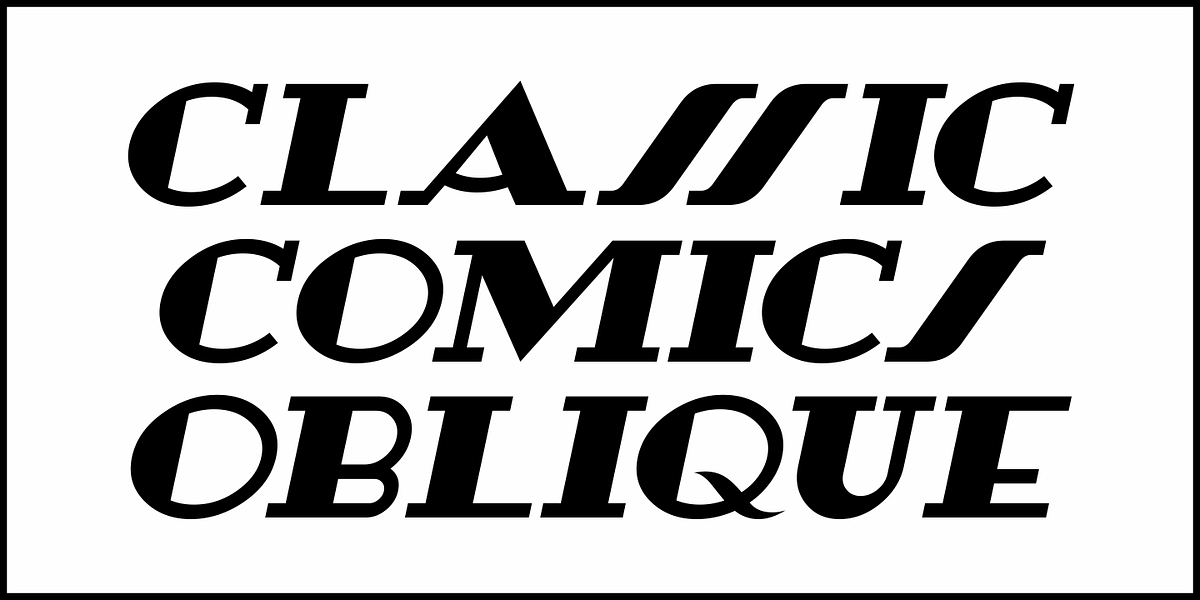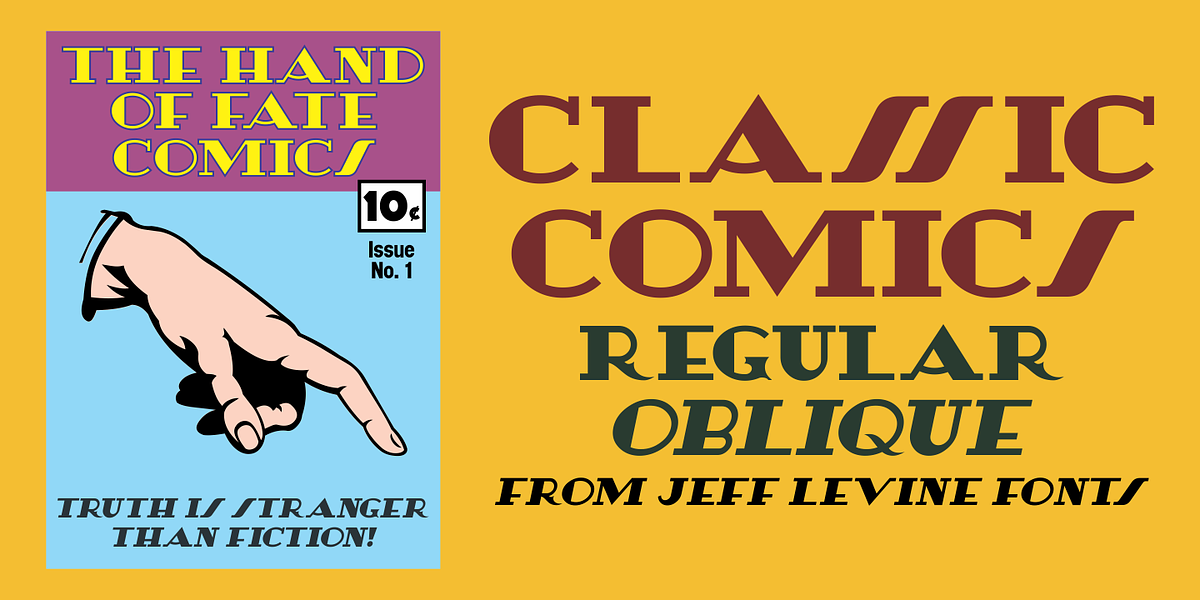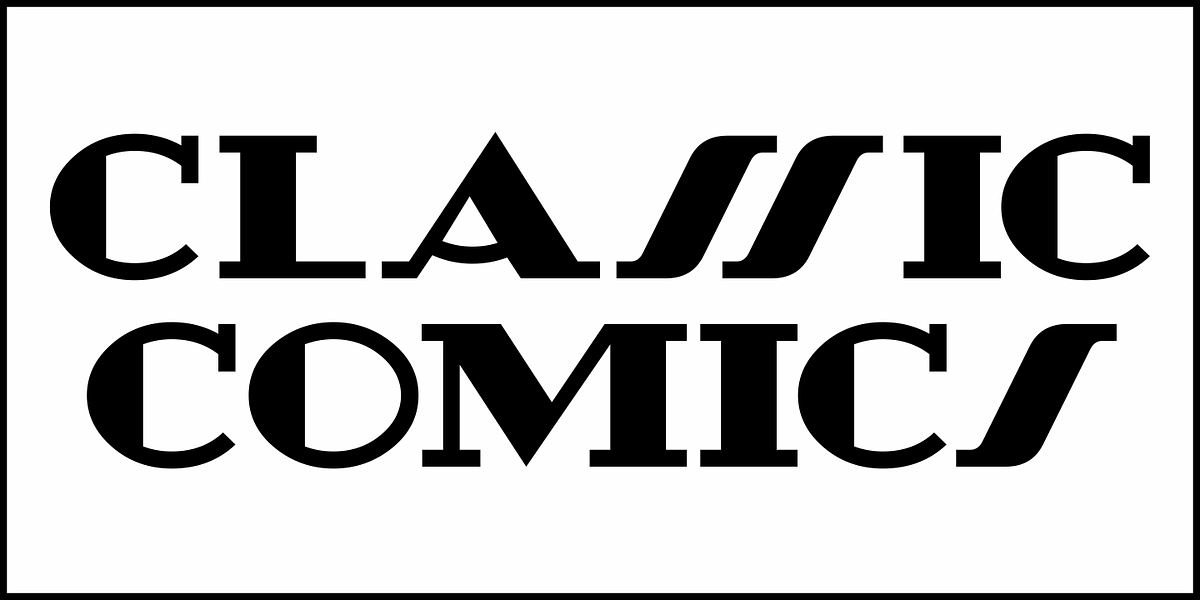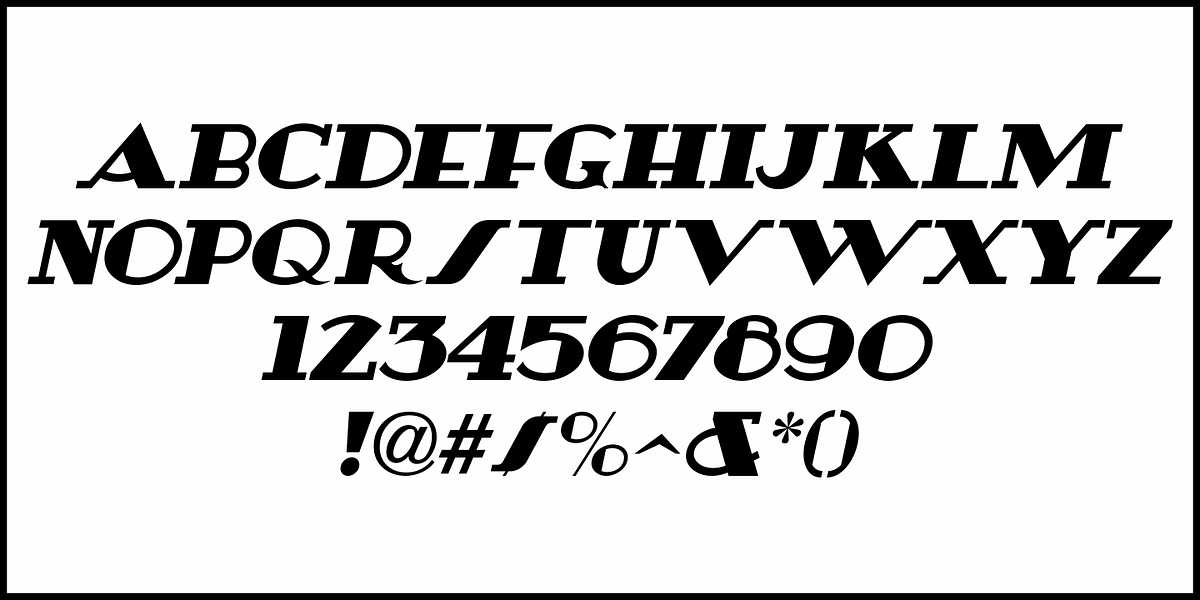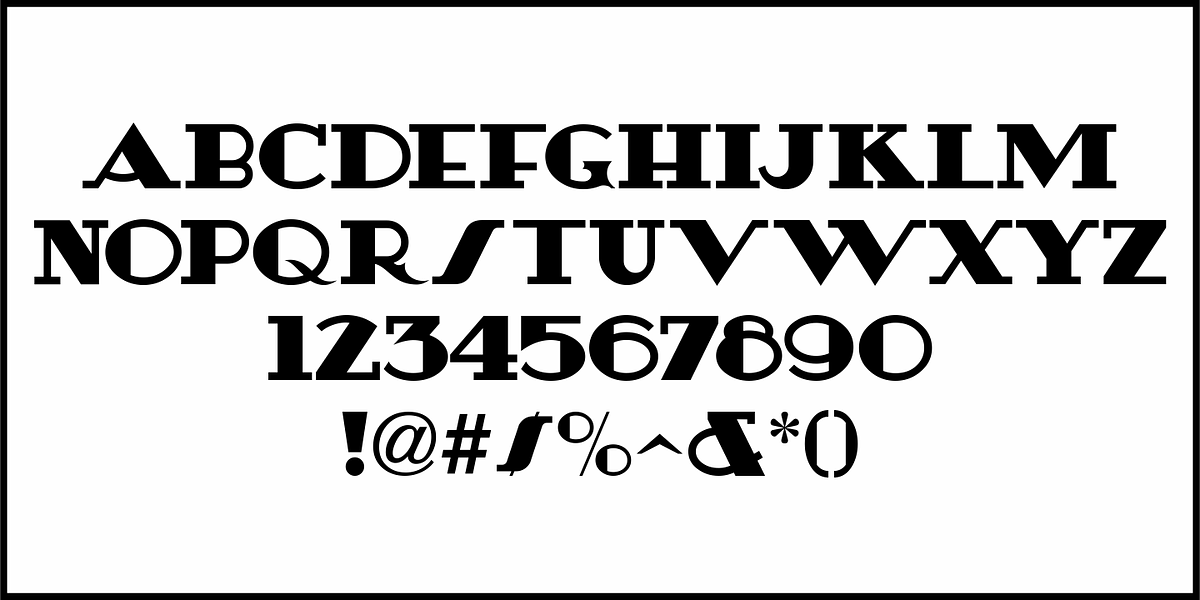
Classic Comics JNL
A comic book feature entitled “Foe of the Borgias” appeared in 1937’s New Adventure Comics.
The hand lettered title was done in a slab serif Art Deco style and is recreated digitally as Classic Comics JNL in both regular and oblique versions.